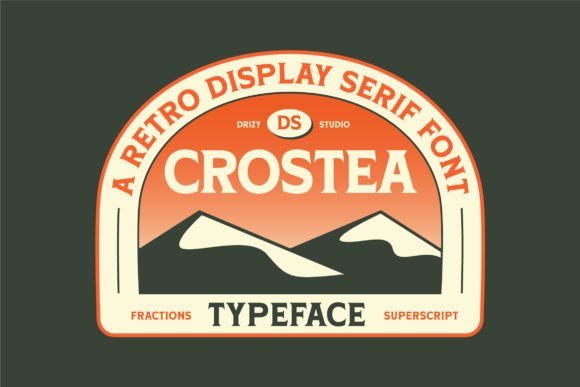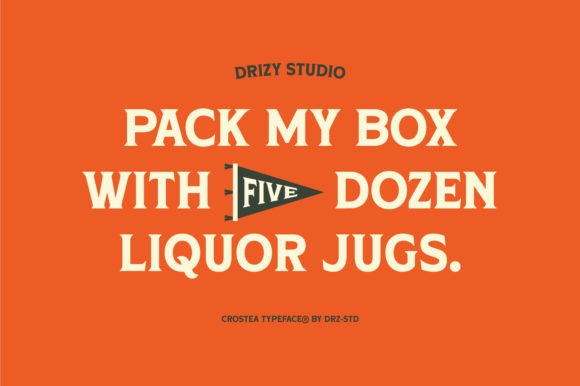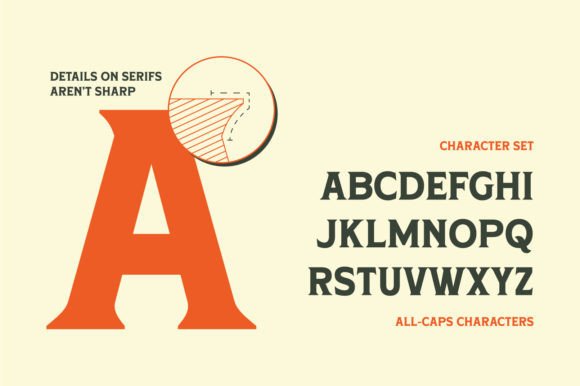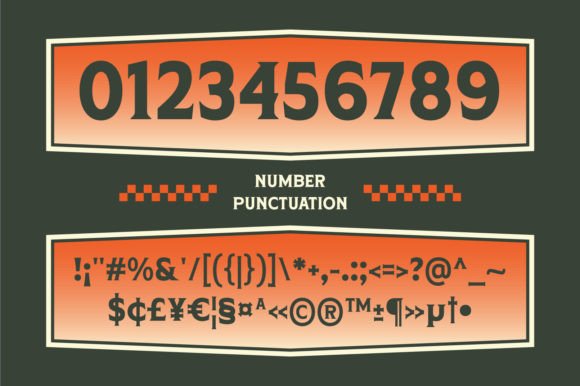
Crostea Font: Vintage Serif Display Font for Retro Logo Design
About the Crostea Font
From logos to headlines, the Crostea Font is the perfect choice for making a lasting impression. Crostea is a step into a world of vintage charm and adventurous spirit with retro, display, serif, and Adventures Patch font. Embark on a typographic journey like no other with our meticulously crafted serif font. Perfect for adding a nostalgic touch to your designs, Crostea captures the essence of retro styling while offering versatility for modern applications.
Whether you’re creating posters, logos, or packaging, this font brings a timeless elegance that commands attention. Unleash your creativity and elevate your projects with a font that blends classic appeal with contemporary flair. Let’s create something extraordinary together.